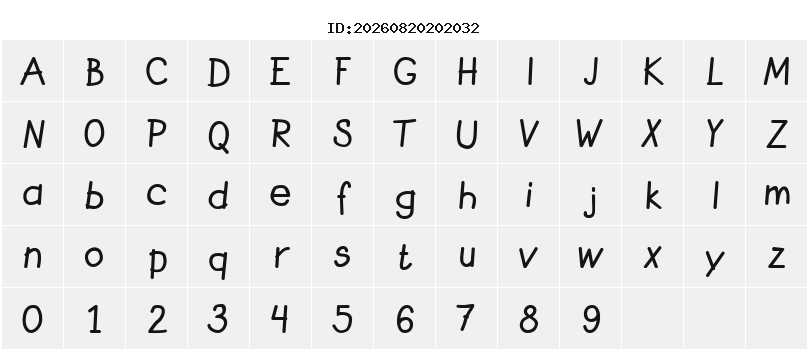
Sebran3 Preview
• Font Name: Sebran3
• Full Font Name: Sebran3
About Sebran3.ttf
Sebran3.ttf is a modern, elegant sans-serif font designed for ultimate readability and visual harmony. Perfect for branding, headlines, web design, and print materials.